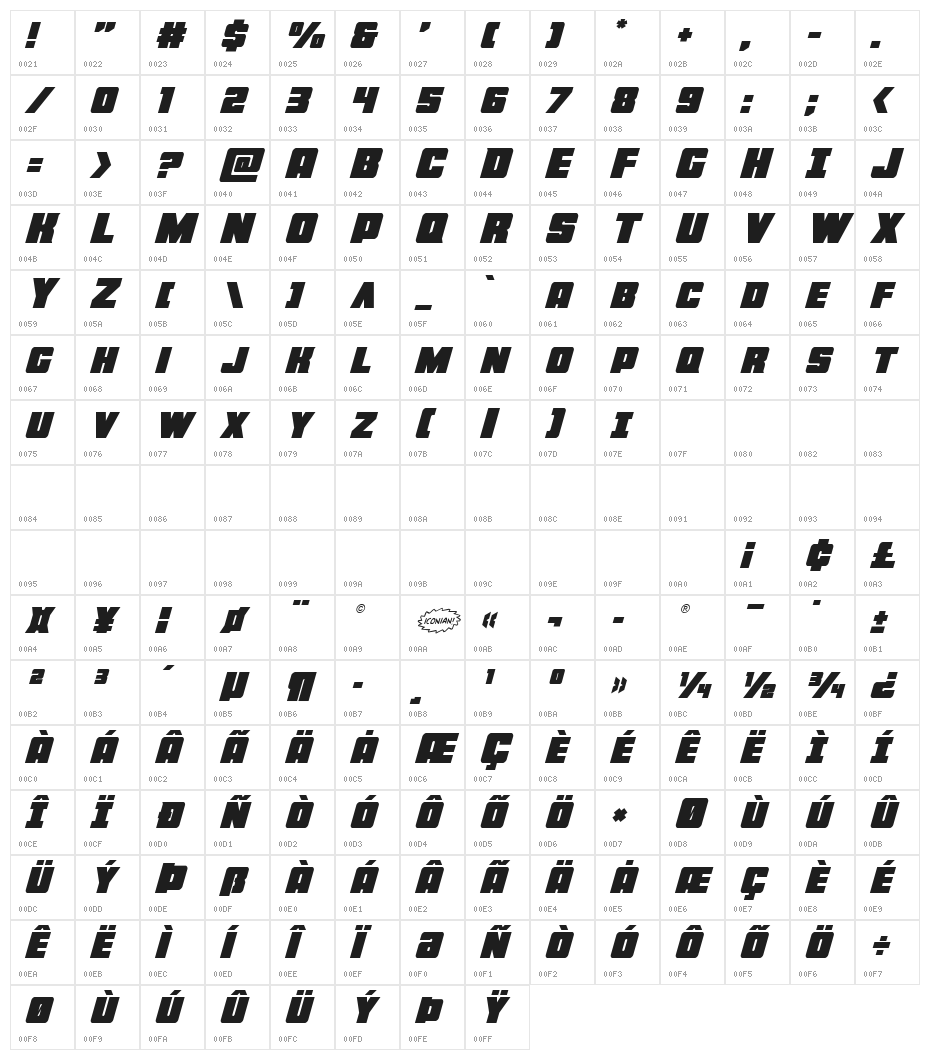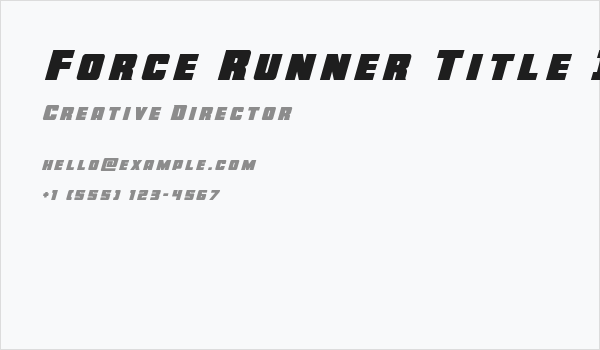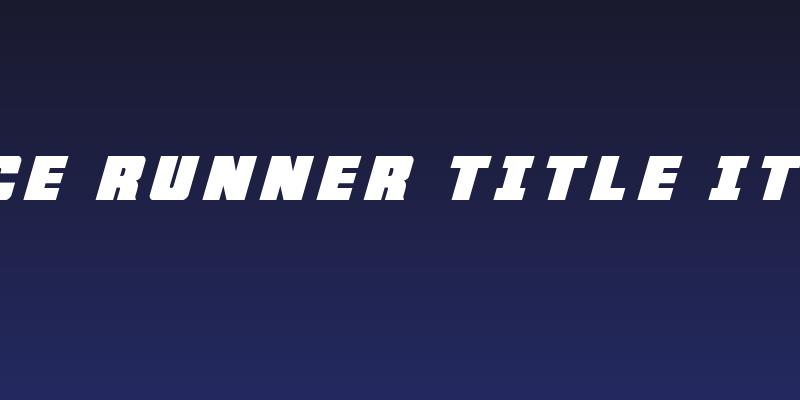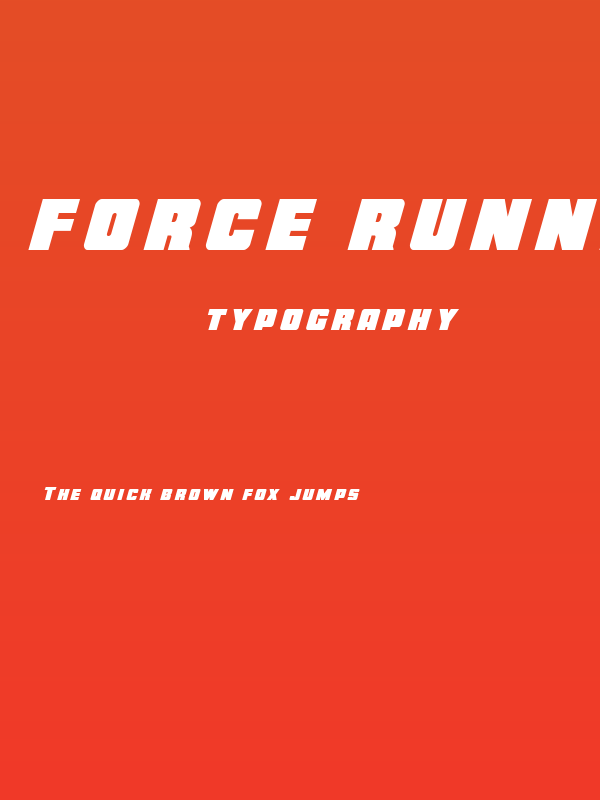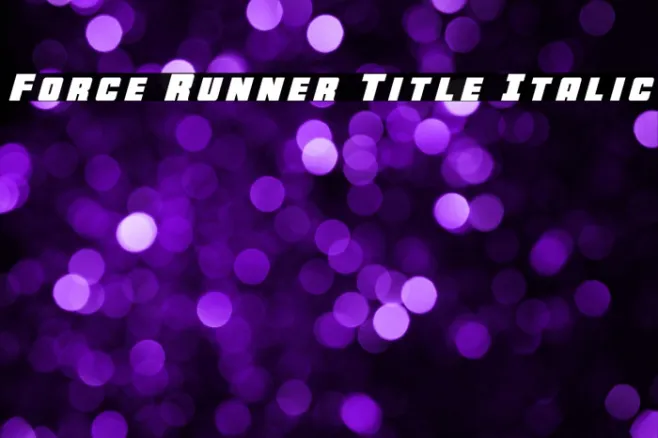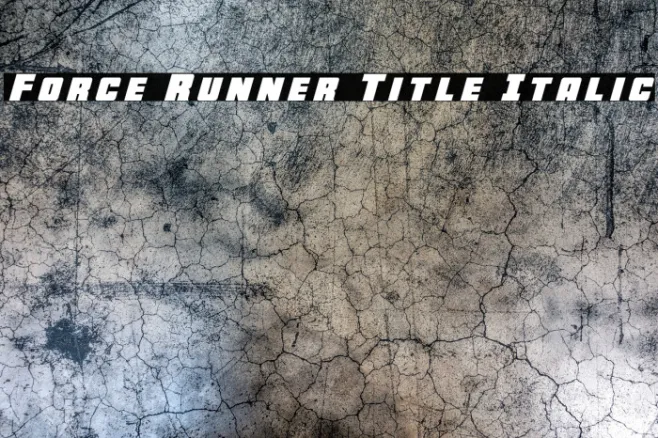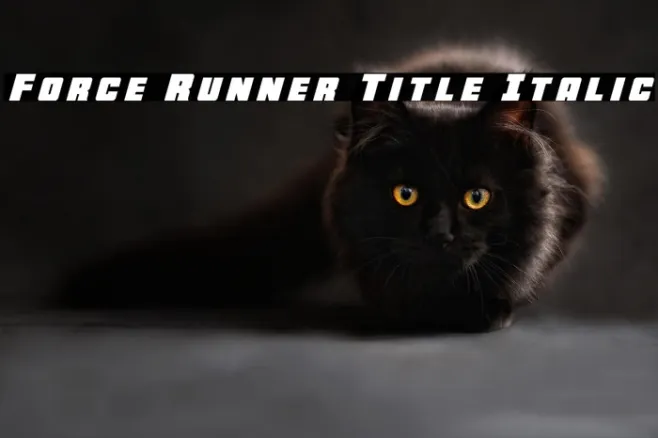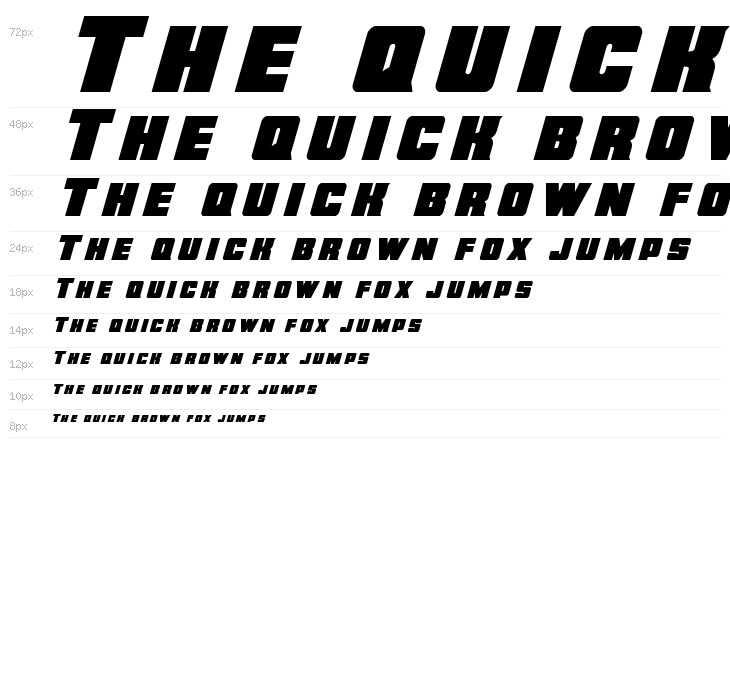
Force Runner Title Italic Font
Force Runner Title Italic Description
This font features a bold and dynamic style with a strong italic slant, giving it a sense of motion and energy. The characters are wide and blocky, with a consistent thickness throughout, which enhances its bold appearance. The uppercase letters are particularly striking, with sharp angles and a futuristic feel. The numbers and special characters maintain the same bold and italicized style, ensuring uniformity across all elements. This font is ideal for projects that require a modern and impactful look.
| Proposed Projects | Ideal for sports branding, action movie titles, video game covers, and dynamic posters. |